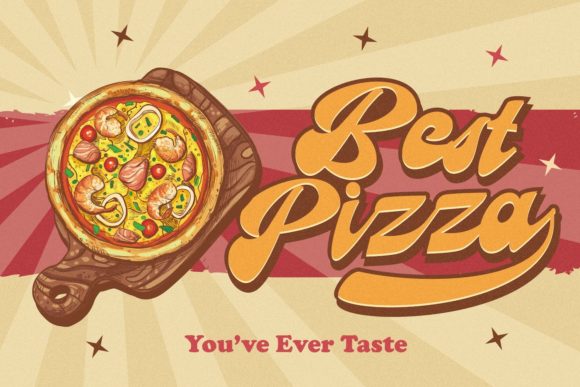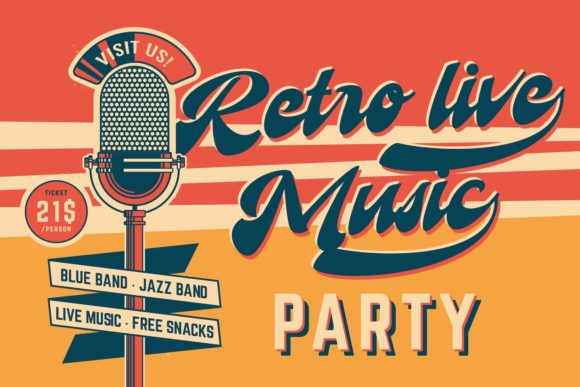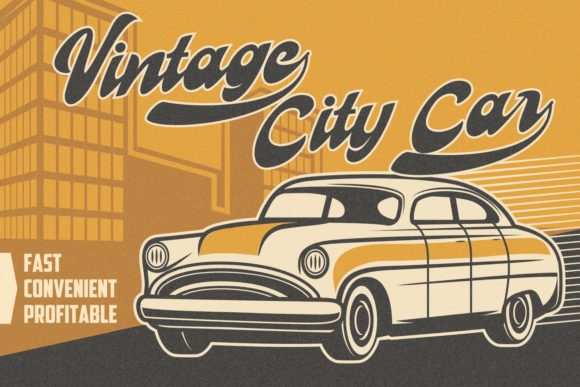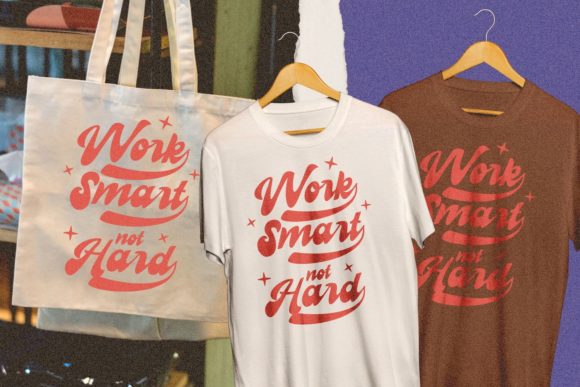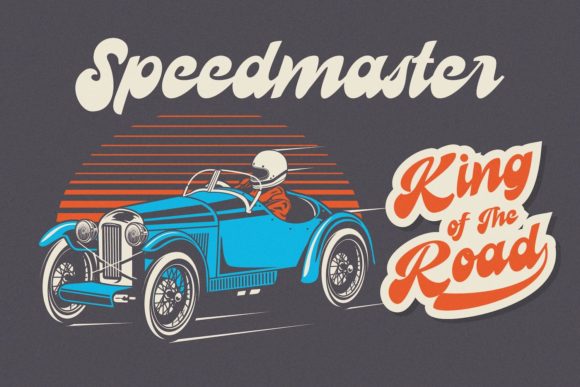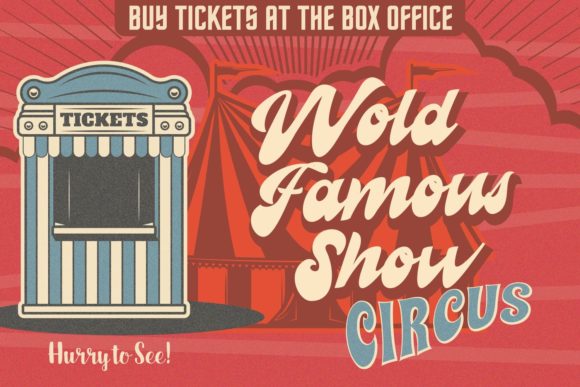
Introduction to Recollet Font
Remember that moment when you’re brainstorming ideas for your next creative project and you just can’t seem to find the perfect font to match your vision? You’ve scrolled through countless options, but nothing seems to capture the essence of your design. Well, we’ve got the solution for you – the Recollet Font is here to revolutionize your design game!
This bold script font boasts a vintage style that’s sure to add a touch of nostalgia to any project. With its high-quality design and transparent background, Recollet Font is a versatile design resource that’s perfect for designers looking to add a unique twist to their work.
Whether you’re working on a free download project or a commercial design, Recollet Font is a valuable asset that’s sure to elevate your creative project to the next level. So why wait? Dive into the world of Recollet Font and discover a whole new world of design possibilities!
Key Features of Recollet Font
- High-quality design resource with a transparent background, ideal for creative projects.
- Includes a range of characters, including uppercase and lowercase letters, numbers, and special symbols.
- Unique characteristics: elegant, modern design with a unique flair, making it perfect for creative projects.
Honest Review: Recollet Font
I recently had the chance to try out the Recollet Font, and I must say, it’s been a game-changer for my creative projects. This free download has been a lifesaver when it comes to adding a touch of elegance to my designs.
- What works well: ✨ The font’s high quality is evident in its smooth lines and crisp edges, making it perfect for both digital and print designs. ✨ The transparent background is also a bonus, allowing me to easily blend it with other design elements.
- What works well: ✨ The font’s versatility is another plus, as it can be used for a wide range of creative projects, from logos to brochures.
However, there are a few limitations to consider. ⚠️ The font’s selection is relatively small, which may not be ideal for designers who need a large variety of fonts for their projects. ⚠️ Additionally, the font may not be suitable for very large or complex designs, as it can become difficult to read at certain sizes.
Overall, I’m thoroughly impressed with the Recollet Font. Its high quality and versatility make it a valuable design resource, and I’m excited to see how it will enhance my future creative projects.
The Recollet Font is ideal for creative projects, such as logo design, branding, and marketing materials. It’s also great for presentations, documents, and other design work where a high-quality font is needed.